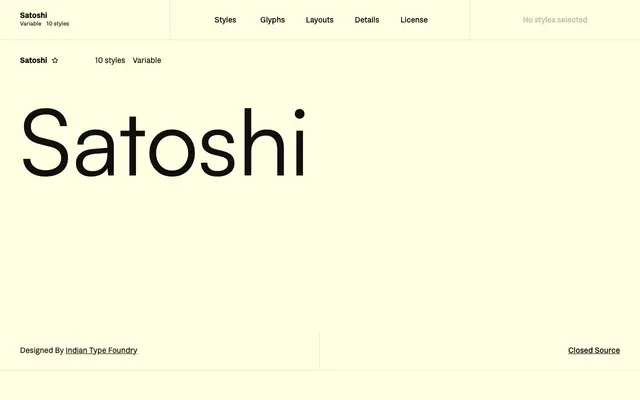
Satoshi
A modernist sans from Indian Type Foundry that mixes grotesque letterforms with geometric influences, released free via Fontshare.
Designed by Indian Type Foundry and debuted on Fontshare in March 2021, it spans five weights from Light to Black with matching italics and a variable axis. The design draws on modernist and industrial-era typography, with double-storey 'a' and 'g' as defaults, single-storey alternates via OpenType, and a full suite of numeral styles including tabular figures and fraction components. Suited to branding, editorial and poster work where a clean but not sterile grotesque is needed.
Satoshi blends grotesque letterforms with geometric construction, placing it at the intersection of those two traditions. Double-storey 'a' and 'g' are default but single-storey alternates are available, reinforcing the geometric influence.